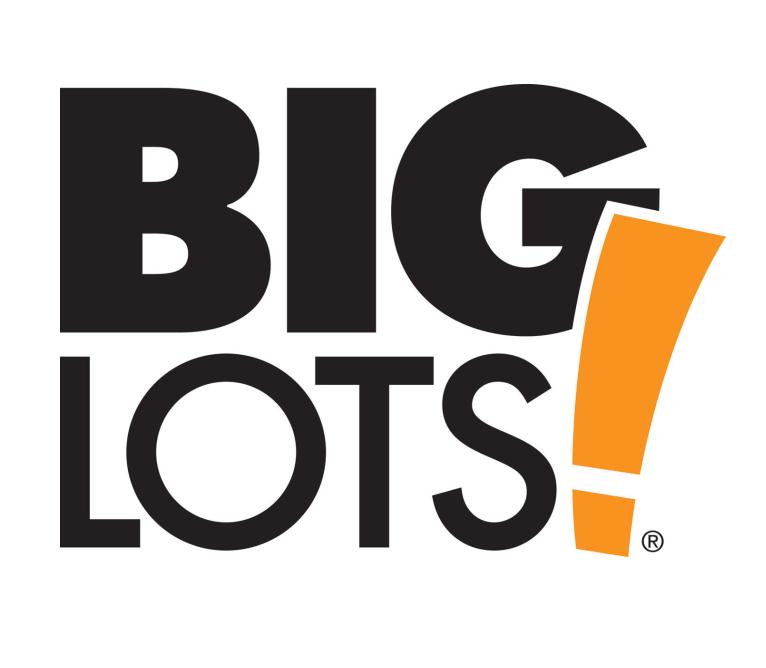
Big Lots Font
The retail company's logo features the Futura font, utilizing Futura Extra Bold for "BIG" and Futura Medium for "LOTS". Futura is a geometric sans serif typeface designed by Paul Renner in 1927.